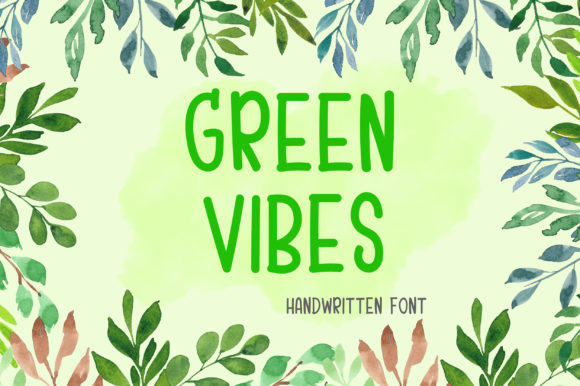
Journey into the realm of handwritten artistry with Green Vibes Font, a whimsical and enchanting script font, meticulously crafted by the talented PearlyDaisy. This charming font exudes a playful spirit, adding a touch of whimsy and lightheartedness to your creative projects.
With its effortless flow and organic curves, Green Vibes Font brings a sense of authenticity and warmth to your designs. Its subtle quirks and irregularities give it a handwritten feel, making it perfect for adding a personal touch to your projects. Whether you're creating heartfelt greetings, whimsical invitations, or eye-catching logos, Green Vibes Font will add a unique and captivating charm.
Dive into a world of endless possibilities with Green Vibes Font. Its versatility knows no bounds, making it an ideal choice for a wide range of projects. From handwritten notes and heartfelt letters to captivating social media posts and playful branding, Green Vibes Font will elevate your designs with its captivating handwritten style.
Embrace the beauty of imperfection and let your creativity flourish with Green Vibes Font. Its charming quirks and playful spirit will inject a sense of joy and individuality into your work. Whether you're a seasoned designer seeking to add a touch of whimsy to your projects or a novice crafter exploring the world of handwritten fonts, Green Vibes Font is the perfect companion for your creative journey.